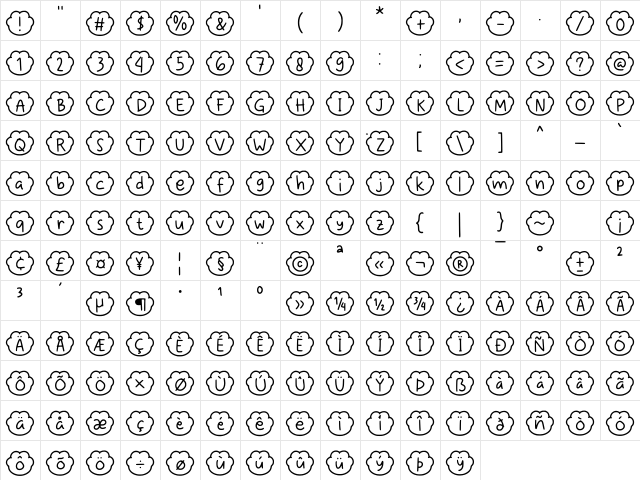
Paws Meow Regular Free Font
Paws Meow Regular
Complete Paws Meow Regular glyph index. Displaying only characters natively supported by Paws Meow Regular font.
Design Context for Paws Meow
Paws Meow is a composed and adaptable typeface that performs quietly and consistently across a wide range of design contexts.